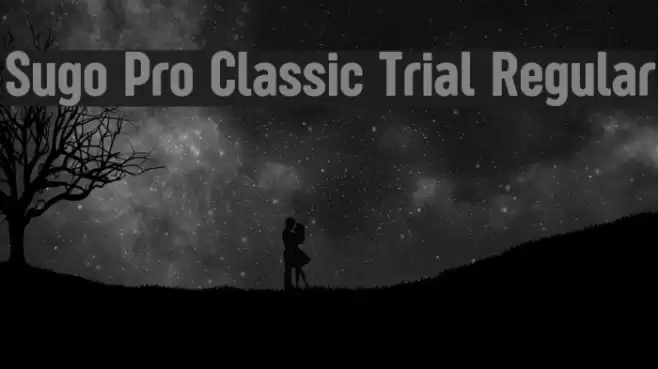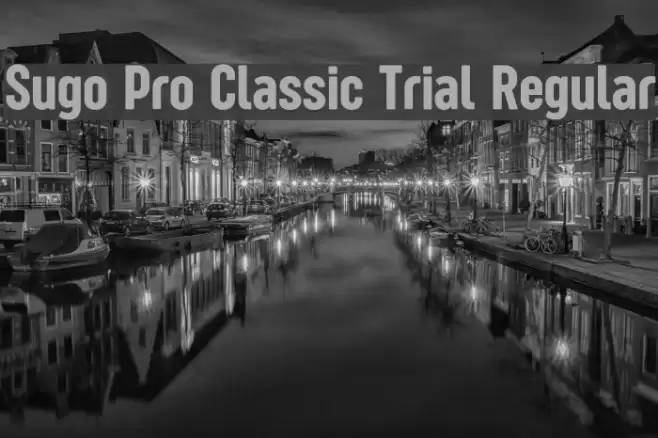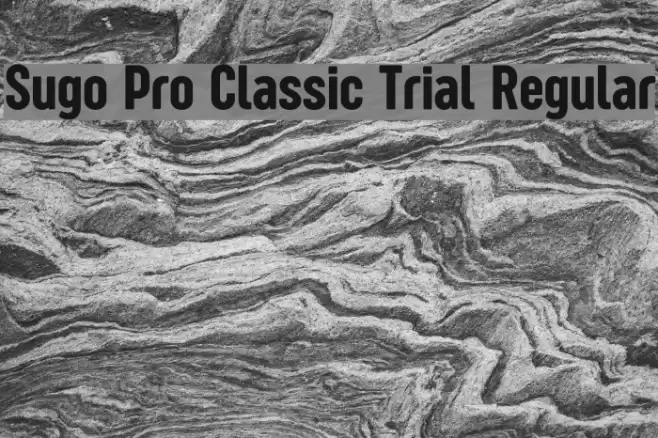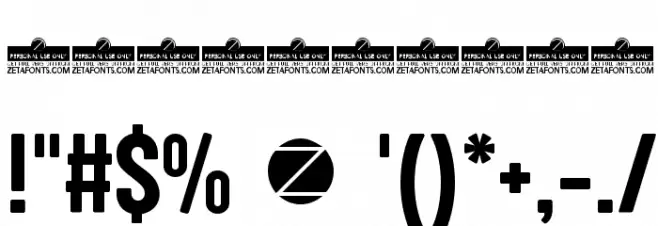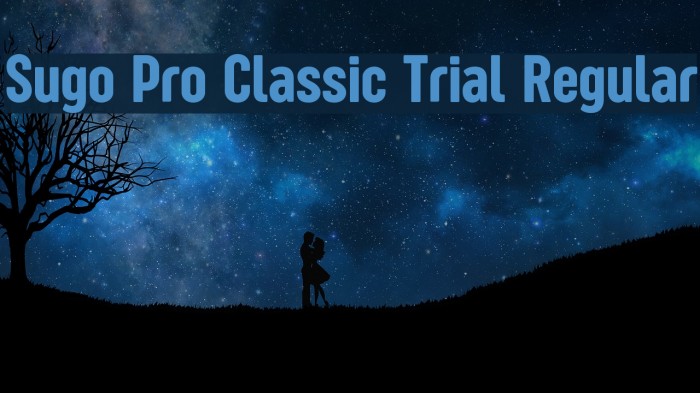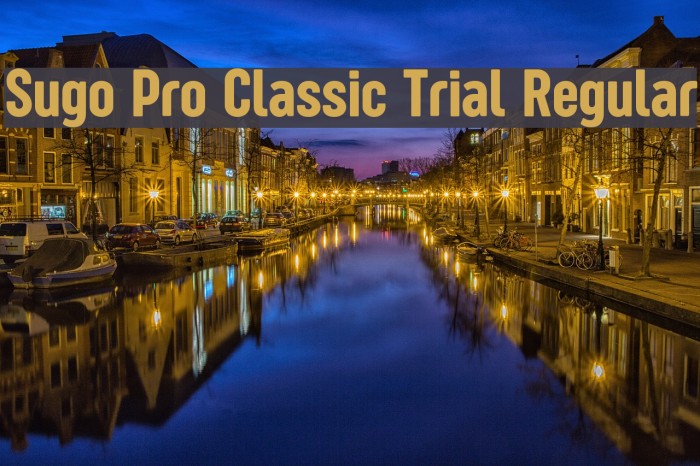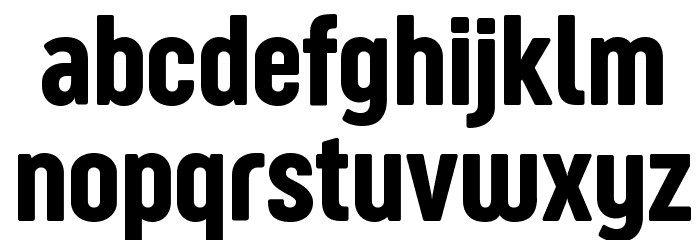
Sugo Pro Classic Trial Regular Font
Sugo Pro Classic Trial Regular Description
This font features a bold and modern design with clean, geometric lines that give it a strong and impactful presence. The uppercase and lowercase letters are well-balanced, with a consistent stroke width that enhances readability. The characters are slightly condensed, adding to the compact and efficient look of the typeface. Special characters and numerals maintain the same boldness and clarity, making them suitable for various design applications. The overall style is contemporary, making it ideal for projects that require a strong visual statement.
A bold, modern font with geometric lines and a strong presence from Uncategorized fonts.
- Proposed Projects: Ideal for branding, advertising, headlines, and digital media projects.
- Use Case: Headlines, Logos, Branding